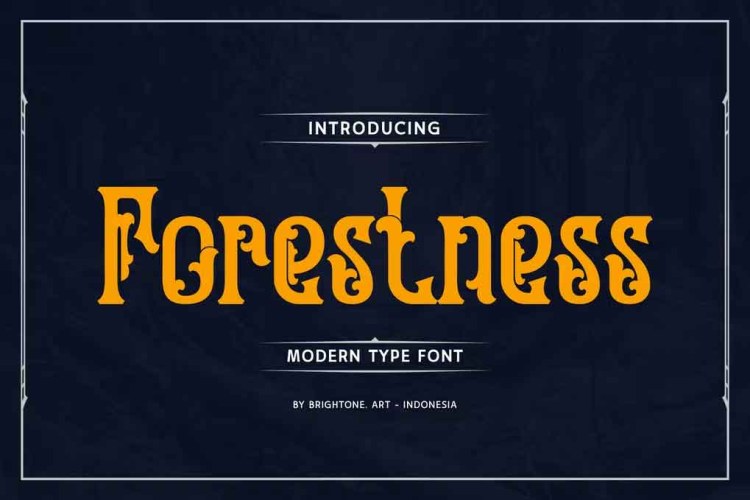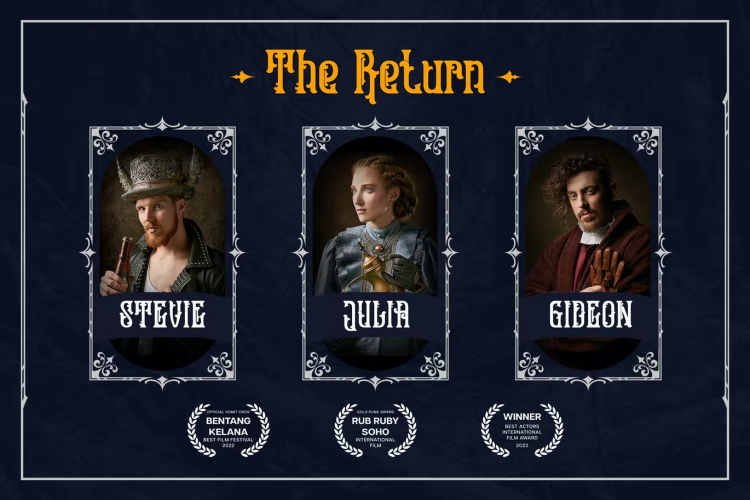
Forestness Elegant Decorative Font
Forestness
is unique and stylish decorative font style based on typeface combination which shapes are combined to make more stunning, these font includes:
Forestness font is suitable to use for all purpose for your logo lettering, logo, label, packaging, sticker, branding and many more
Where Forestness Elegant Decorative Font works best
Event & seasonal design
Forestness Elegant Decorative Font suits themed posters, holiday campaigns, festival identities and party invitations.
Game & entertainment titles
Decorative letterforms are a natural fit for game logos, movie-style titles and merch.
Packaging accents
Use Forestness Elegant Decorative Font sparingly for product names or flavour labels that need personality.
What is Forestness Elegant Decorative Font good for?